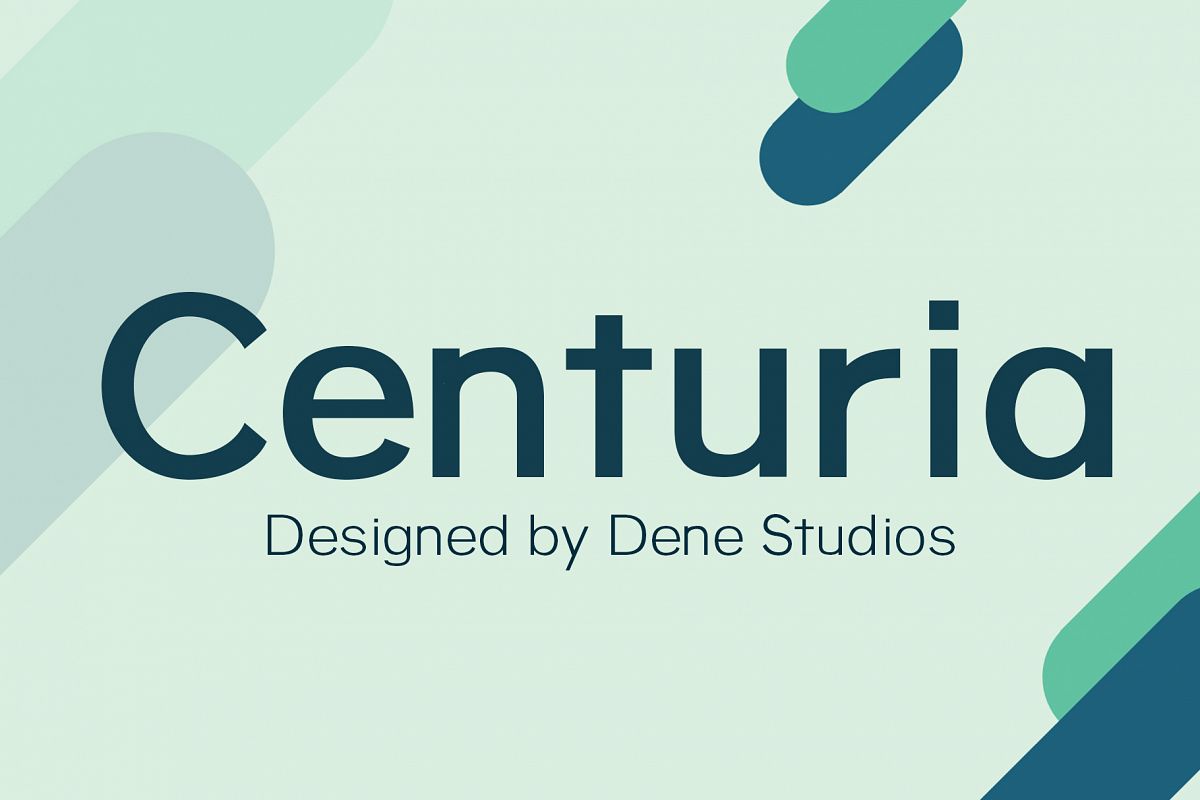
Centuria Typeface
Centuria regular
Centuria bold
Centuria regular-italic
Centuria bold-italic
Centuria is a clean modern sans typeface that has been passionately designed for you. Perfect for large headings, body text, and advertisements. An essential font and a great asset to own, this typeface will give your project a clean and modern look.